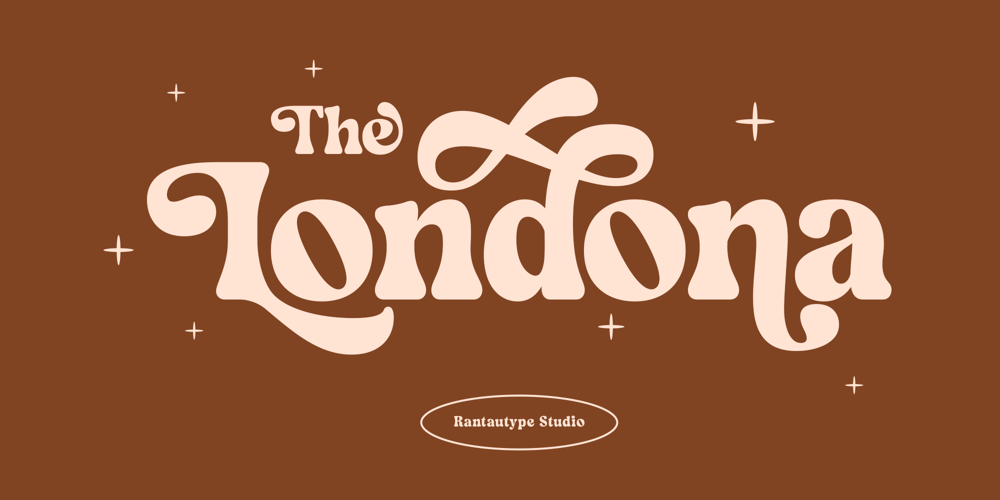
Londona
Londona font
Londona Font Family was designed by Yudi Pratama Chandra and published by RantauType. Londona contains 2 styles and family package options. Londona is a stylish font that is both retro and bold font. It’s thick curves give a 70s groovy vibe with the serifs bringing it slightly back to traditionalLondona fits perfectly into those nostalgic moodboards and vintage logos. It come with a unique lower and uppercase plus numbers and punctional. Laurasia also have more alternate and ligature so you can get creative with more optional.Londona- separate in reguler and italic, we are love this combination make work more awesome in nostalgic. For alternate in uppercase, numerals and punctuation. (See preview image for the full character map.)Feautures: 2 Font ( reguler and italic ) Standar character A-Z and a-z Numberial and Functional Alternate and ligature Works on PC & Mac Simple installations Accessible in Adobe Illustrator, Adobe Photoshop, Adobe InDesign, even work on Microsoft Word. Fonts include Multilingual Support for: Afrikaans, Albanian, Asu, Basque, Bemba, Bena, Breton, Chiga, Cornish, Dutch, English, Estonian, Filipino, Finnish, Friulian, Galician, Gusii, Indonesian, Irish, Italian, Kabuverdianu, Kalenjin, Kinyarwanda, Luo, Luxembourgish, Luyia, Machame, Makhuwa-Meetto, Makonde, Malagasy, Manx, Morisyen, North, Ndebele, Nyankole, Oromo, Portuguese, Quechua, Romansh, Rombo, Rundi, Rwa, Samburu, Sango, Sangu, Scottish, Gaelic, Sena, Shambala, Shona, Soga, Somali, Spanish, Swahili, Swedish, Swiss, German.Thank you for your purchase!Hope you enjoy with our font!